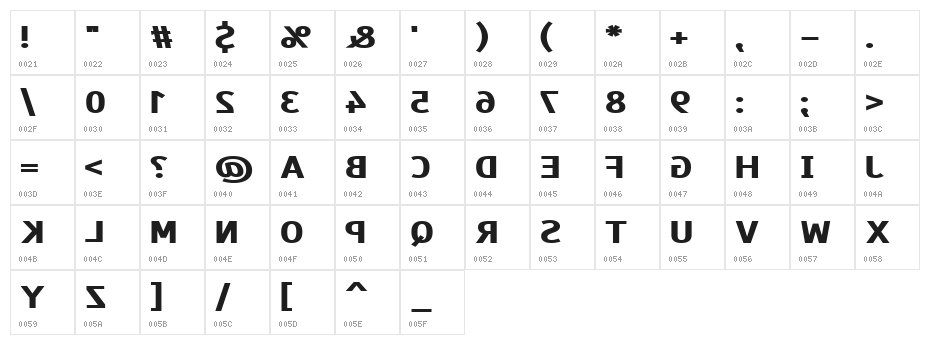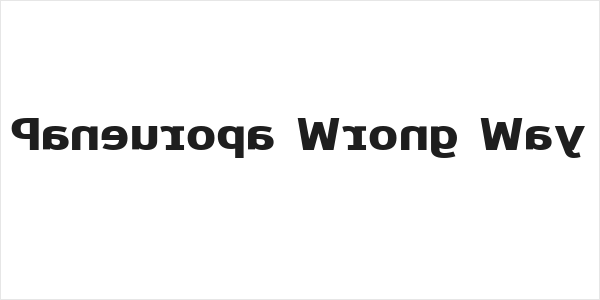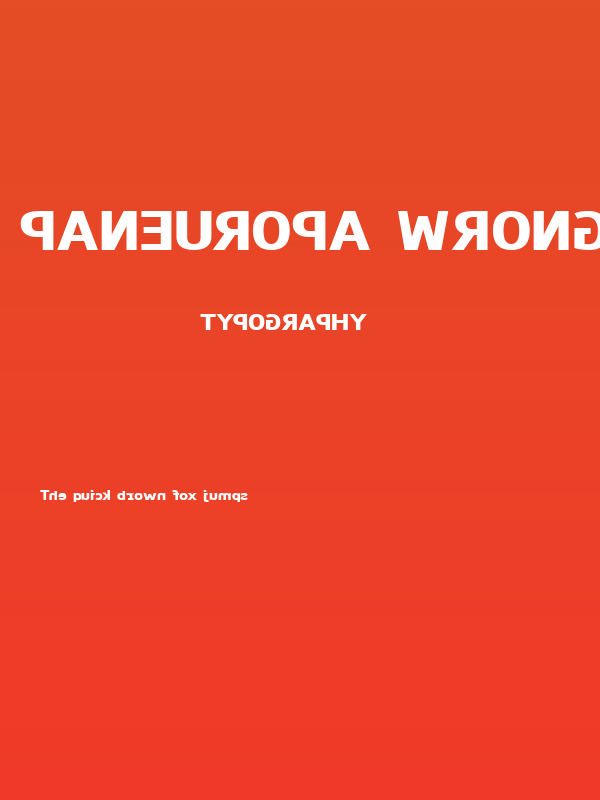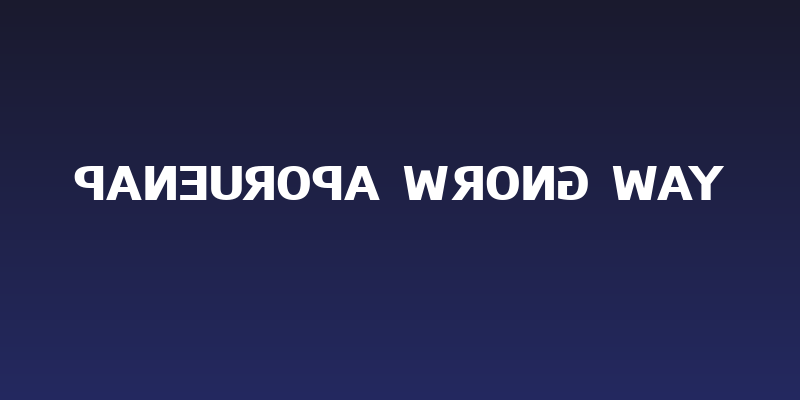
Paneuropa Wrong Way Font
Paneuropa Wrong Way Description
This font features a bold and robust design with strong geometric shapes and a modern aesthetic. The characters are uniformly thick, providing a consistent and powerful visual impact. The uppercase and lowercase letters maintain a cohesive style, with clean lines and sharp angles that enhance readability. The numerals are equally bold, ensuring they stand out in any context. Special characters are designed with the same attention to detail, making them suitable for various applications. The overall impression is one of strength and clarity, making it ideal for impactful headlines and branding.